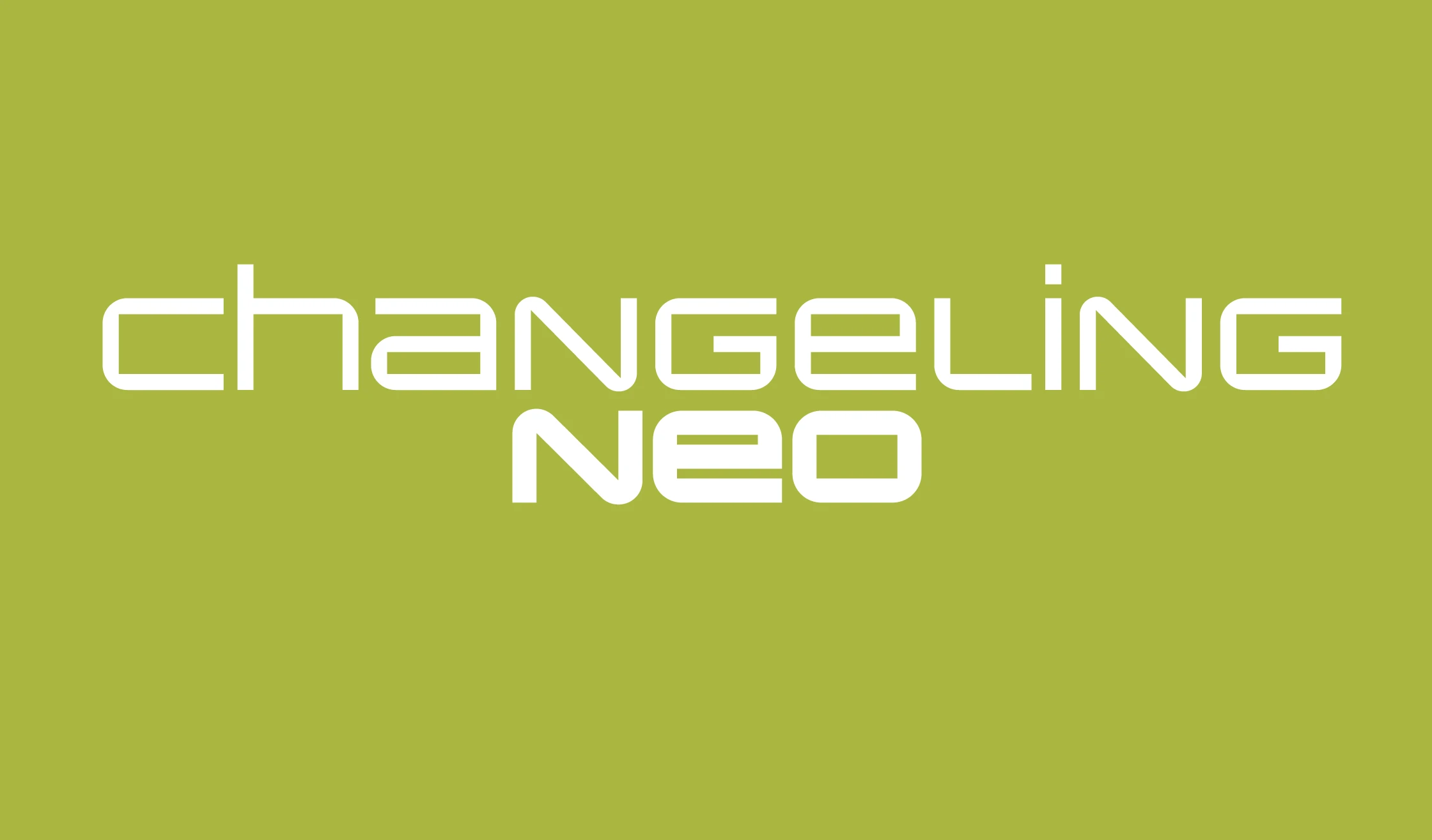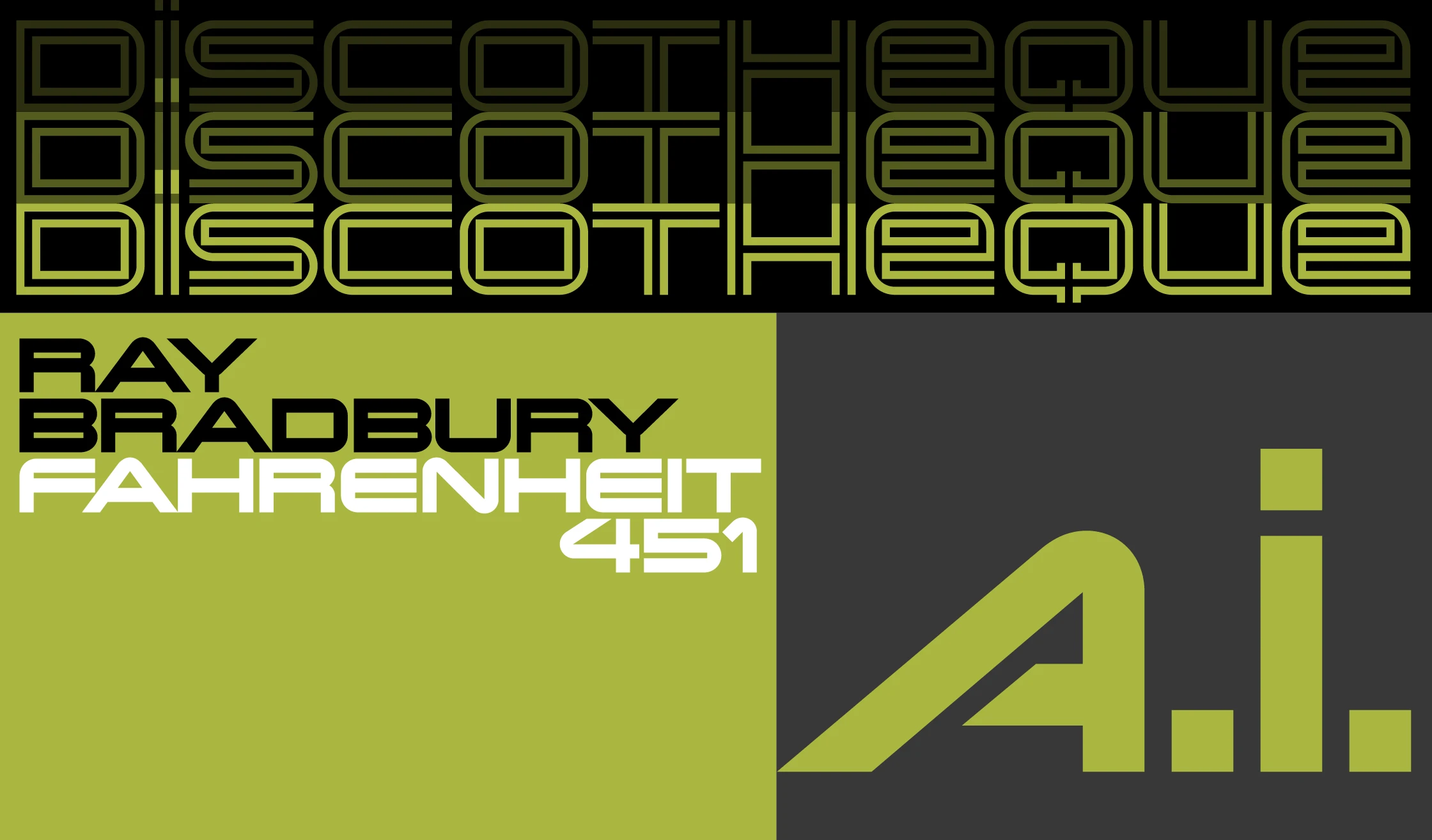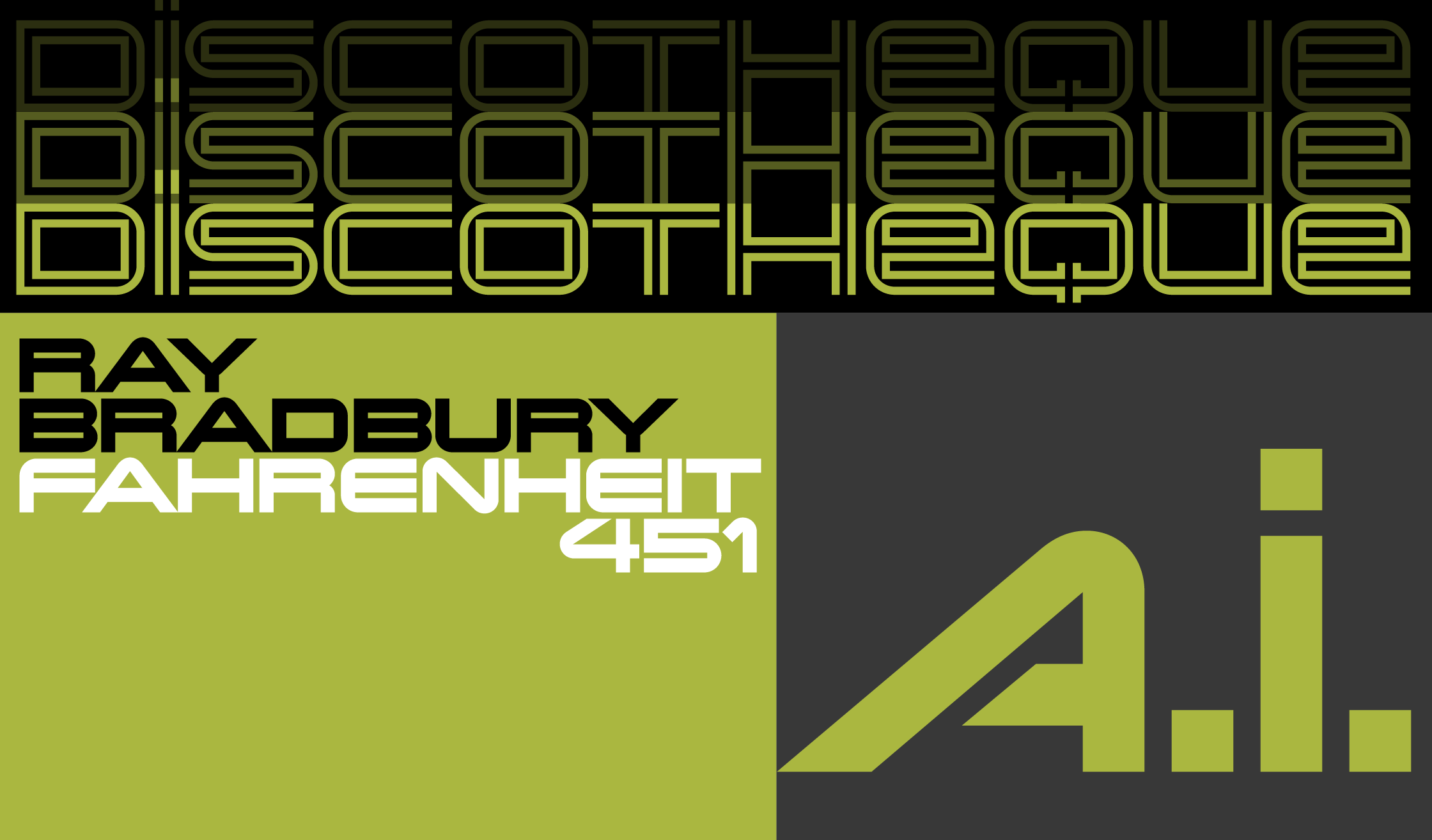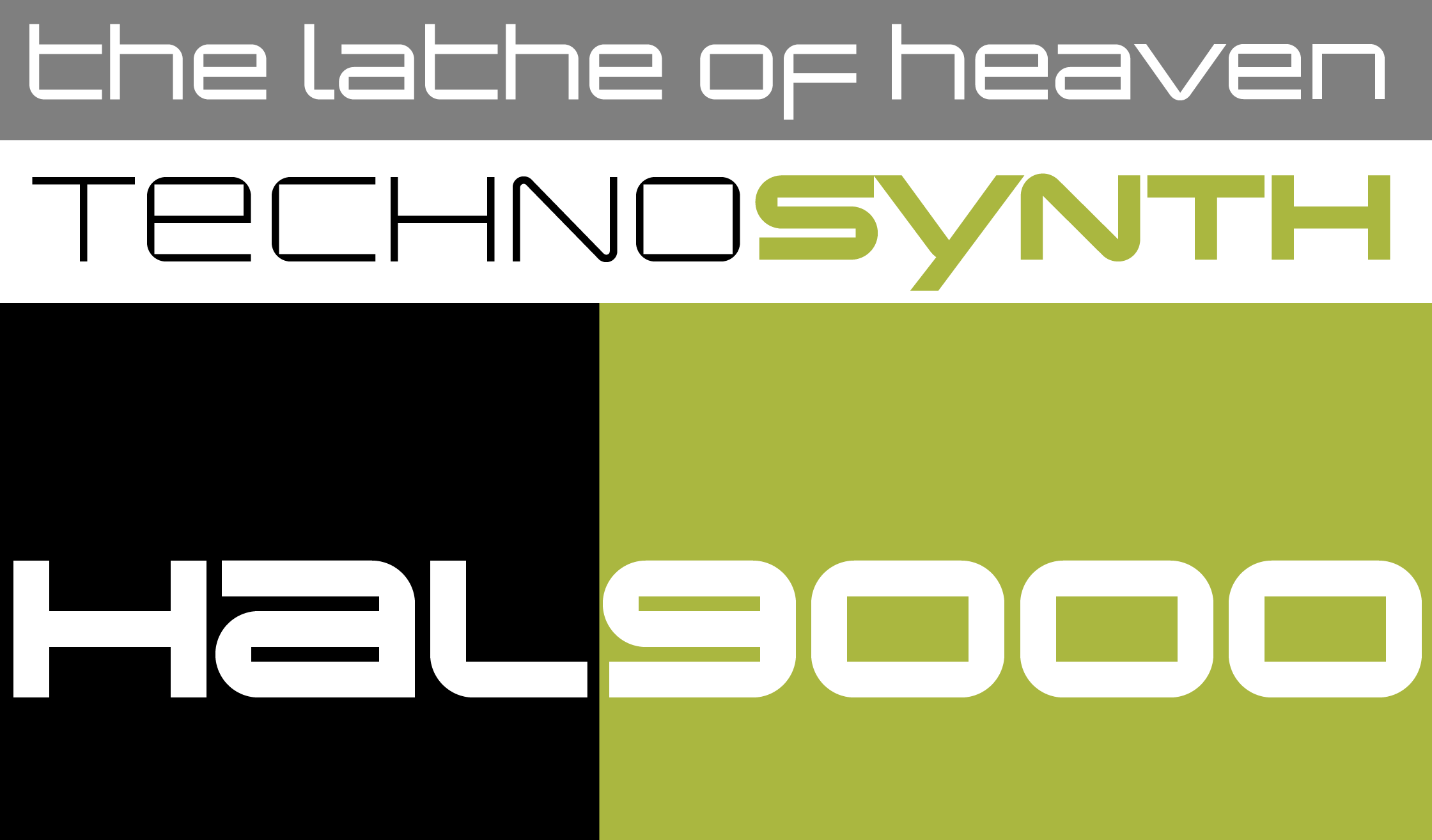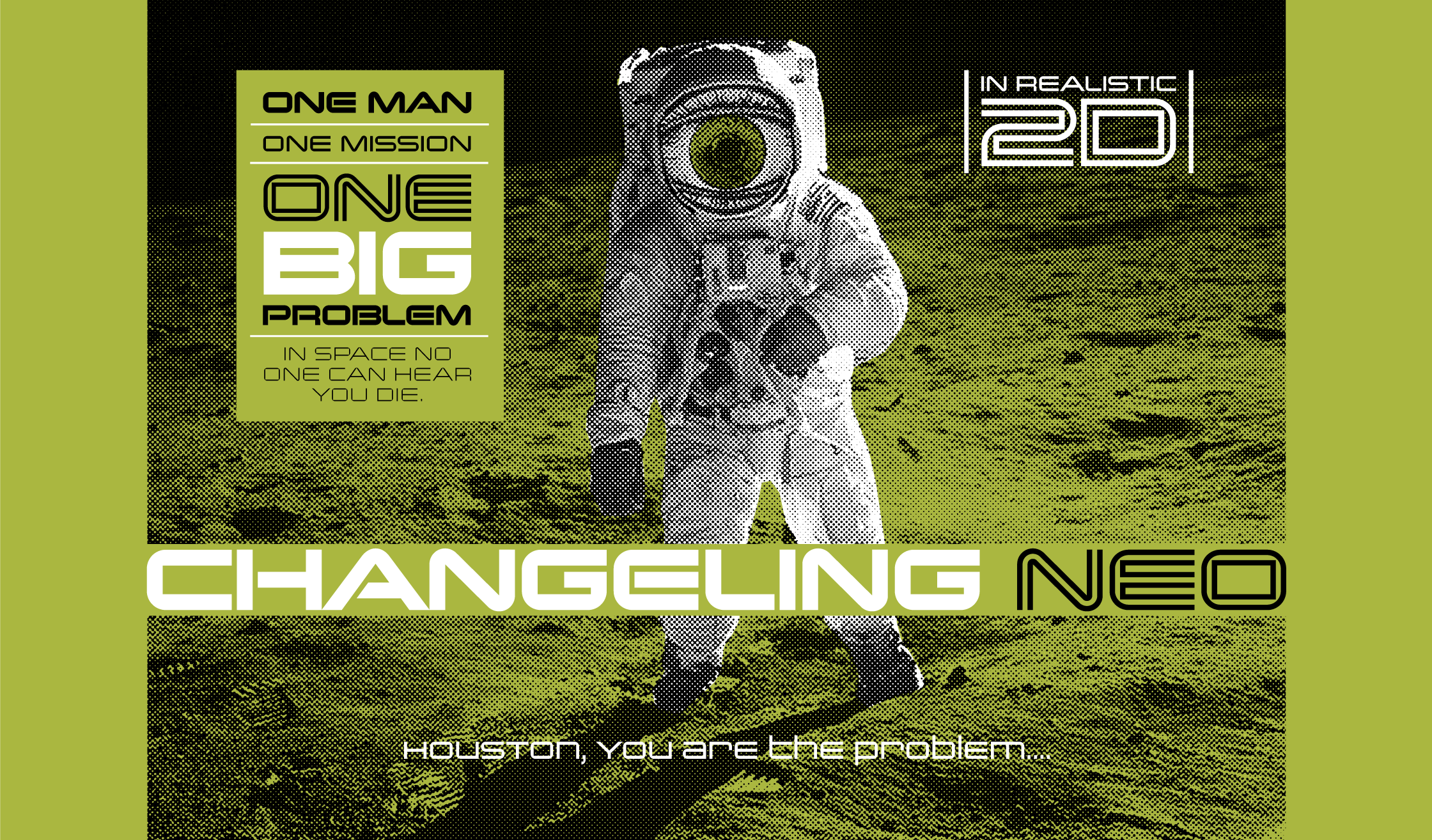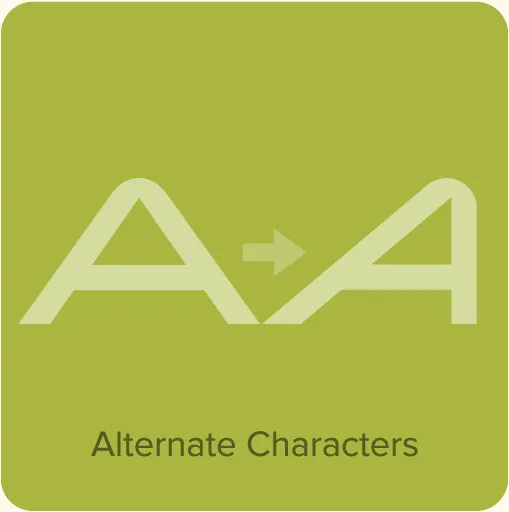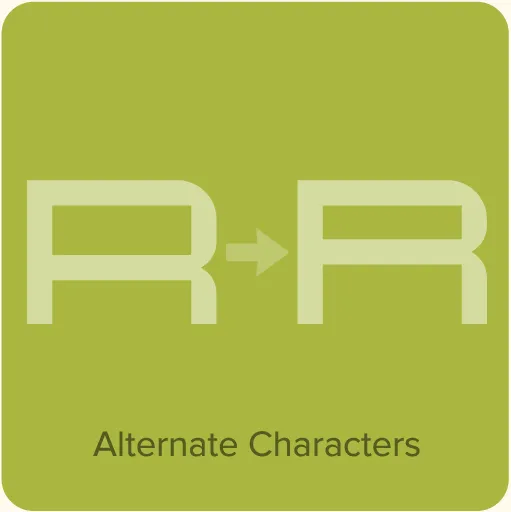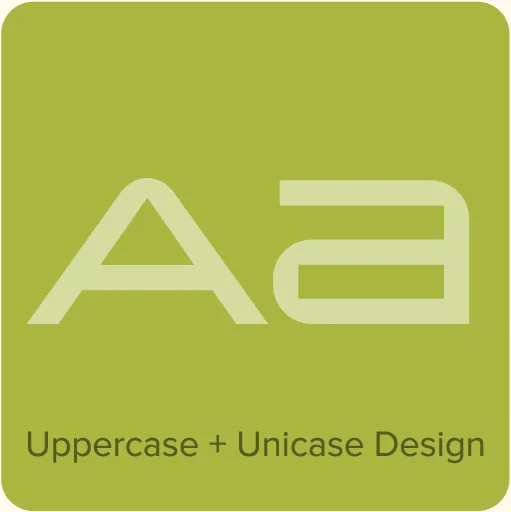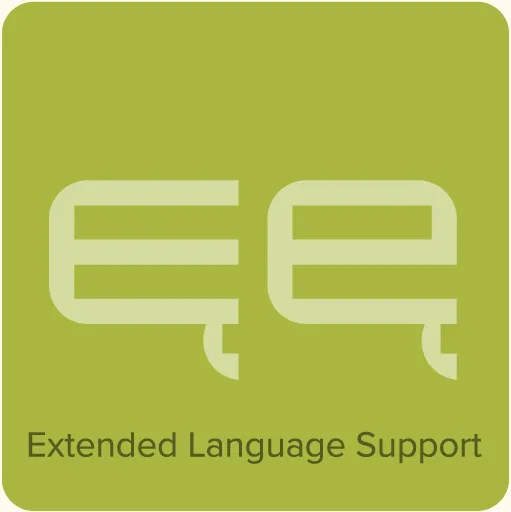
Changeling Neo (2008, originally released as Changeling in 2003) is my redesign and expansion of China, a VGC Photo-Typositor face released 1975. China had only one weight (similar to Changeling Neo Bold) in all-caps with only a few alternate characters. In Changeling Neo, I redesigned many characters for better type color. I also added a complete set of lowercase-style variants, providing endless “unicase” combinations. I also added four more styles — Light, Regular, Stencil, and Inline.
Changeling Neo Features
- Five styles: Light, Regular, Bold, Stencil, and Inline.
- Unicase design.
- Ligatures.
- Alternate characters.*
- 14 stylistic sets.*
- Proportional and tabular figures.*
- Automatic arbitrary fractions.*
- Superscript and subscript figures.
- Extended language support for most Latin-based Western and Central European languages, plus Cyrillic.
Changeling Spotted in Star Trek Movie Changeling gets cast in the 2009 J.J. Abrams Star Trek reboot.